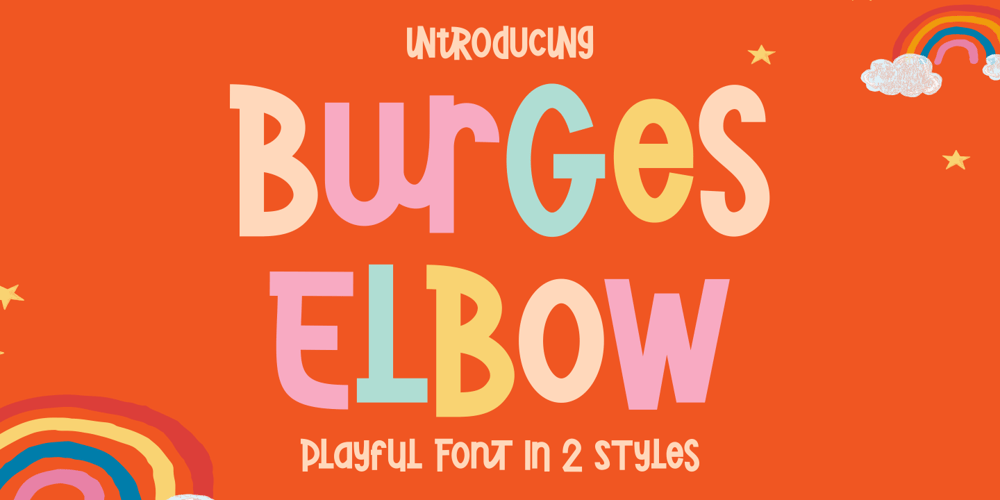
Burger Elbow
Burger Elbow font
Burger Elbow Font Family was designed by Putra Novembria Candra Kusuma and published by Putracetol. Burger Elbow contains 2 styles and family package options. Burges Elbow – Playful Font In 2 StylesCreated with the idea of bringing happiness and joy to any project, Burges Elbow is a perfect choice for those who want to add a touch of playfulness to their design.To use Burges Elbow to its full potential, it would be great for designs aimed towards children such as book covers, posters, and flyers. Its playful and quirky nature would also make it a great choice for branding aimed at a younger audience or products that want to add a sense of fun and whimsy.Burges Elbow comes with a variety of features, including uppercase and lowercase characters, opentype alternates and ligatures, and support for multiple languages. These features allow for a wide range of creative possibilities and make it easy to use in various projects.Included in the zip package are three different file types: OTF, TTF, and WOFF, which can be used in any design software that supports font installation. With these different file types, you can use Burges Elbow on any platform or device, making it a versatile choice for any project.Add a touch of fun and playfulness to your design with Burges Elbow. Its cute and whimsical nature will surely make your design stand out and bring a smile to anyone’s face.In summary, Burges Elbow is a playful font in 2 styles that is perfect for designs aimed at children or those looking to add a sense of fun and whimsy to their branding. With its various features and file types, Burges Elbow is a versatile choice that can be used in any design project.